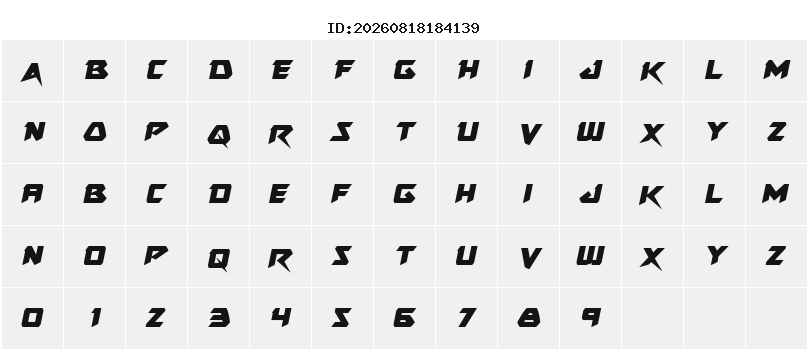
About Skirmisher Semi-Italic.ttf
Skirmisher Semi-Italic.ttf is a modern, elegant sans-serif font designed for ultimate readability and visual harmony. Perfect for branding, headlines, web design, and print materials.